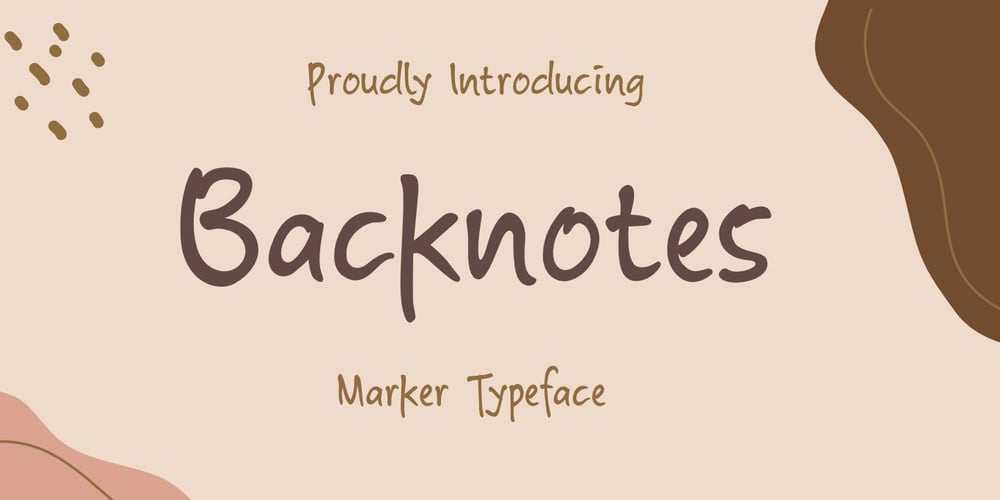
Backnotes Font Family was designed by David Kasidi and published by Silverdav. Backnotes contains 1 styles and family package options. Backnotes font is a handwritten font with unique strokes, designed to enhance your designs so that your designs become more beautiful.Perfect for logo, wedding invitations, t-shirt, quotes, magazines, signature, branding silhouette, and many more.